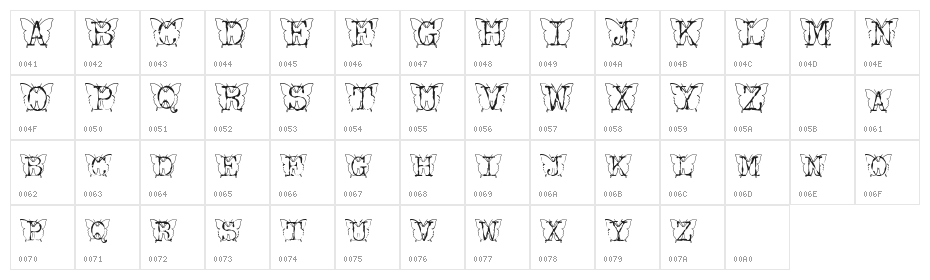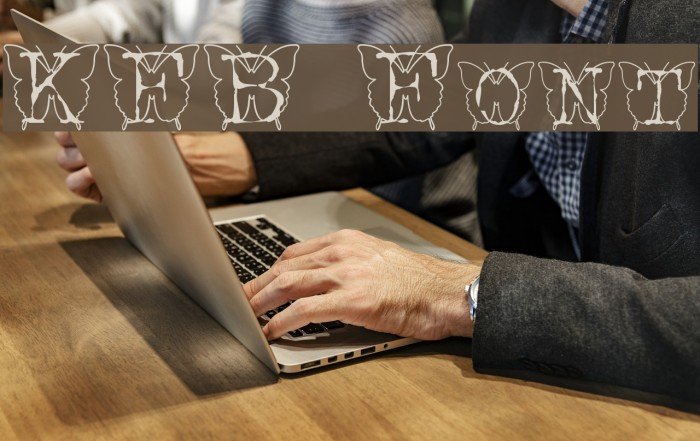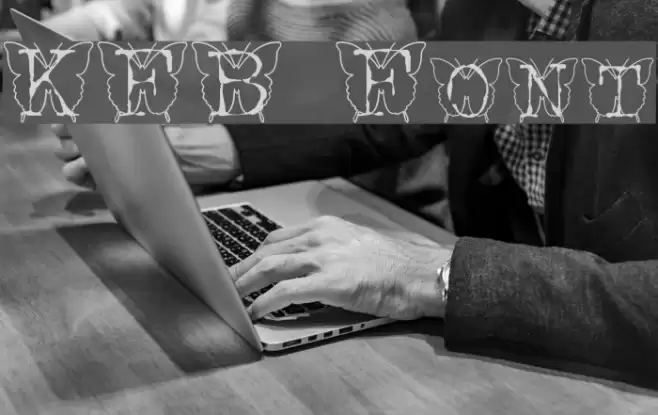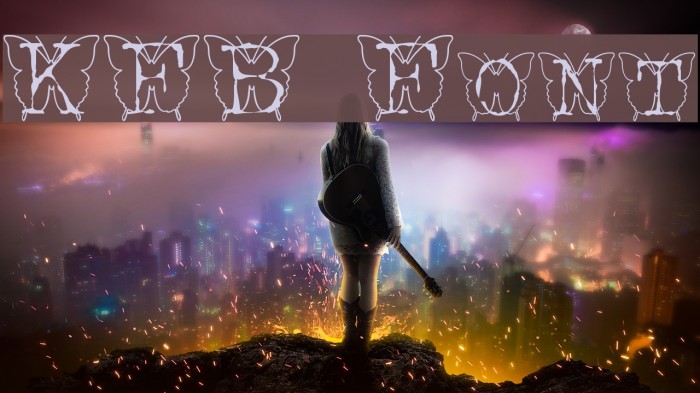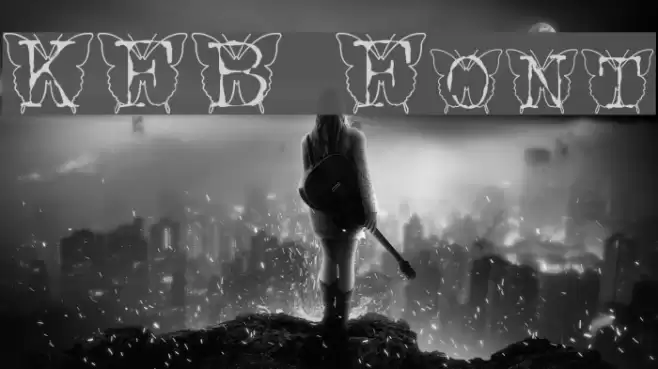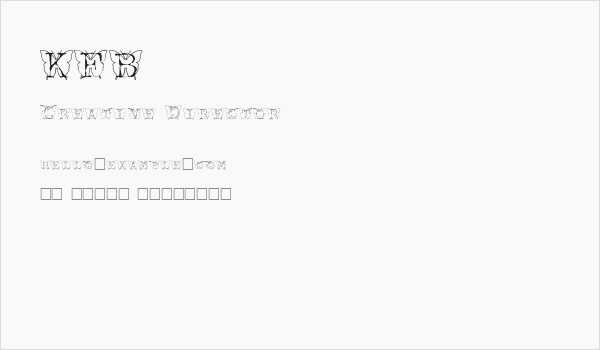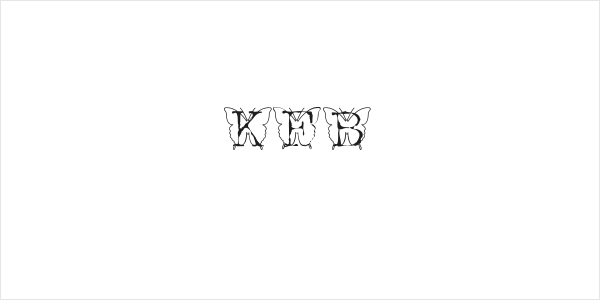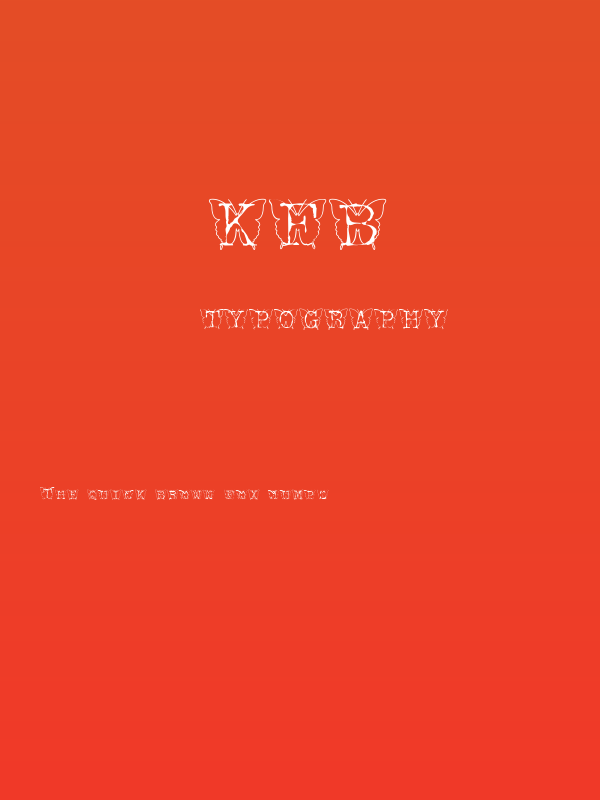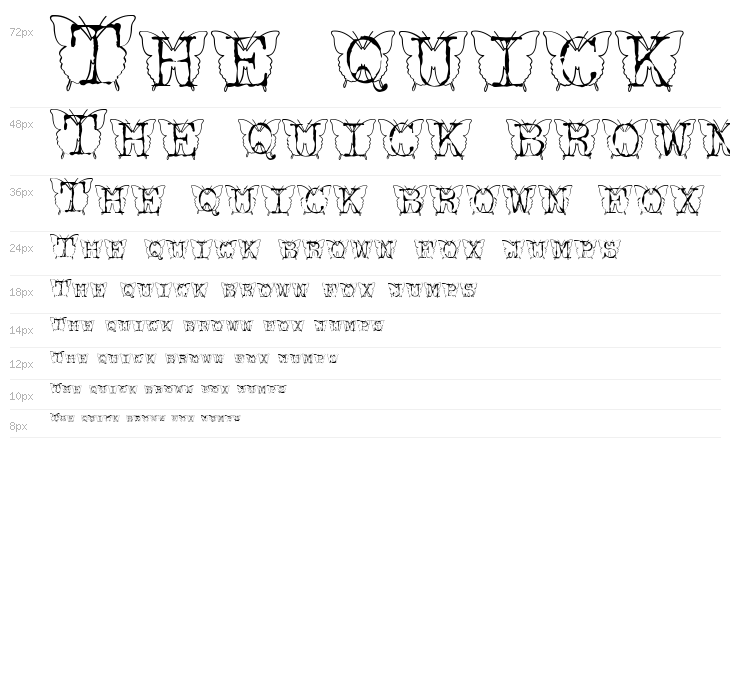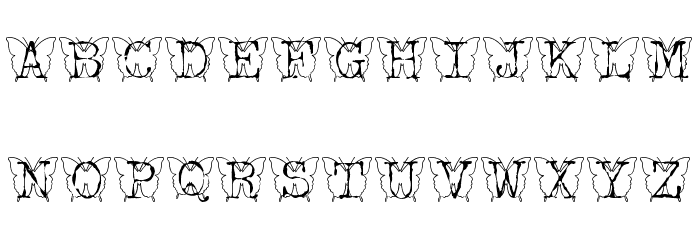
KFB Font
KFB Description
This font features an intricate and decorative design where each letter is creatively integrated into the shape of a butterfly. The wings form the outer structure while the letter itself is positioned centrally, creating a unique and artistic appearance. The style is highly ornamental, making it suitable for projects that require a touch of elegance and creativity. The font lacks lowercase letters, numbers, and special characters, focusing solely on uppercase letters. The detailed and complex design suggests a decorative use rather than practical text applications.
| Use Case | Logos, Decorative headings |
| Proposed Projects | Ideal for artistic projects, invitations, greeting cards, and decorative headings. |